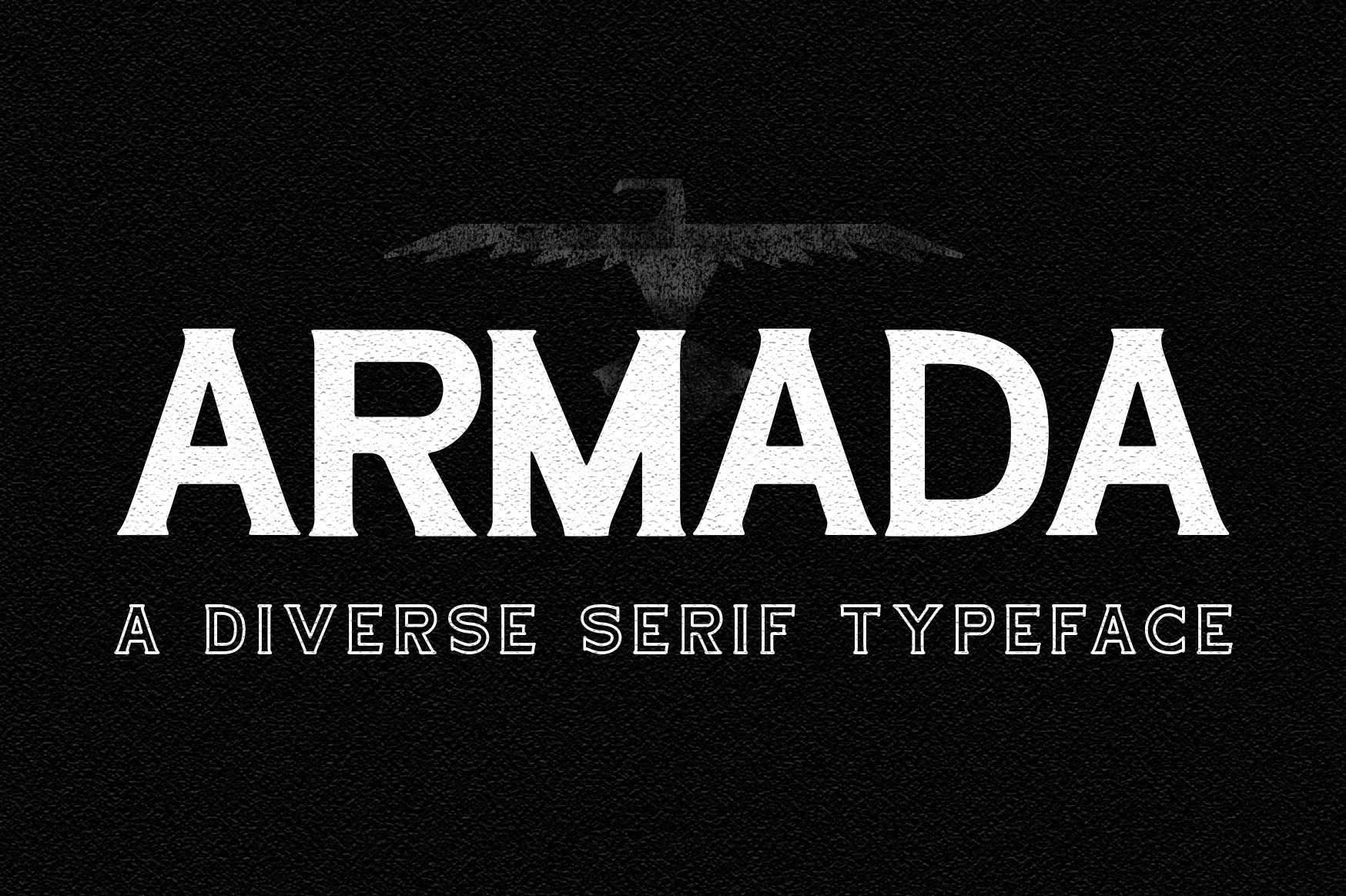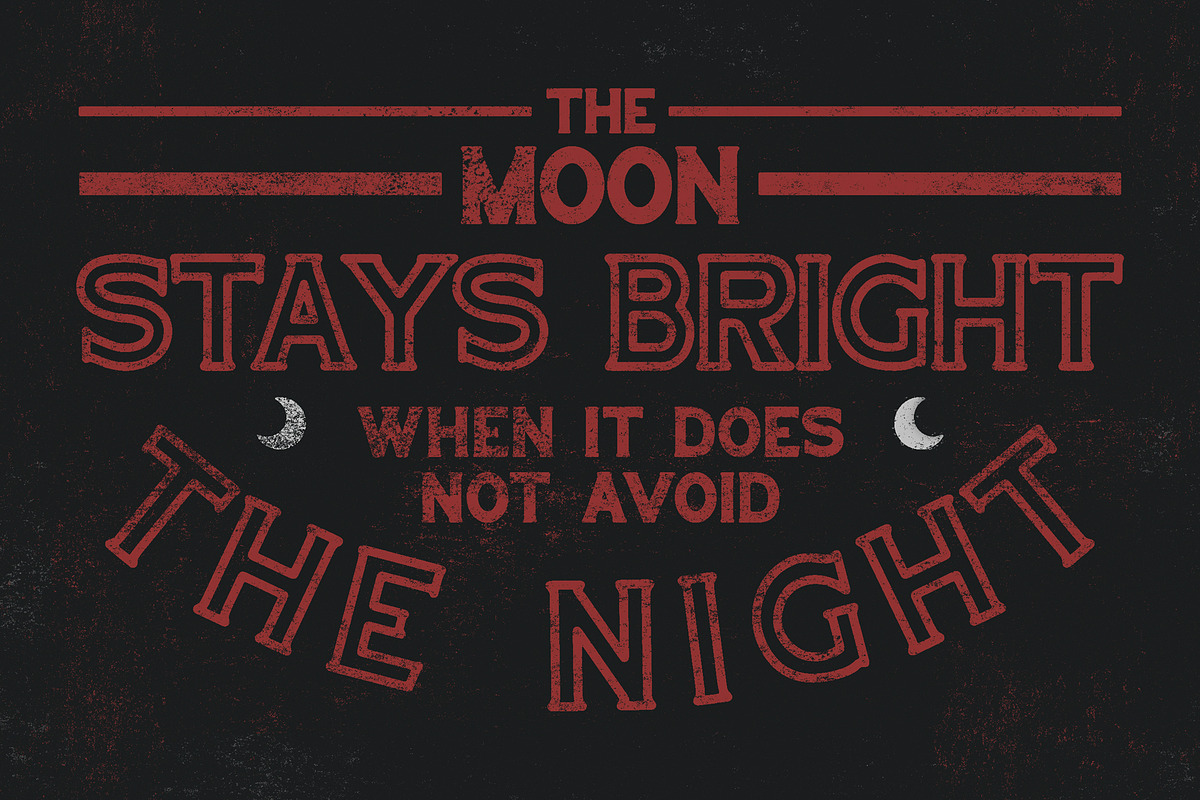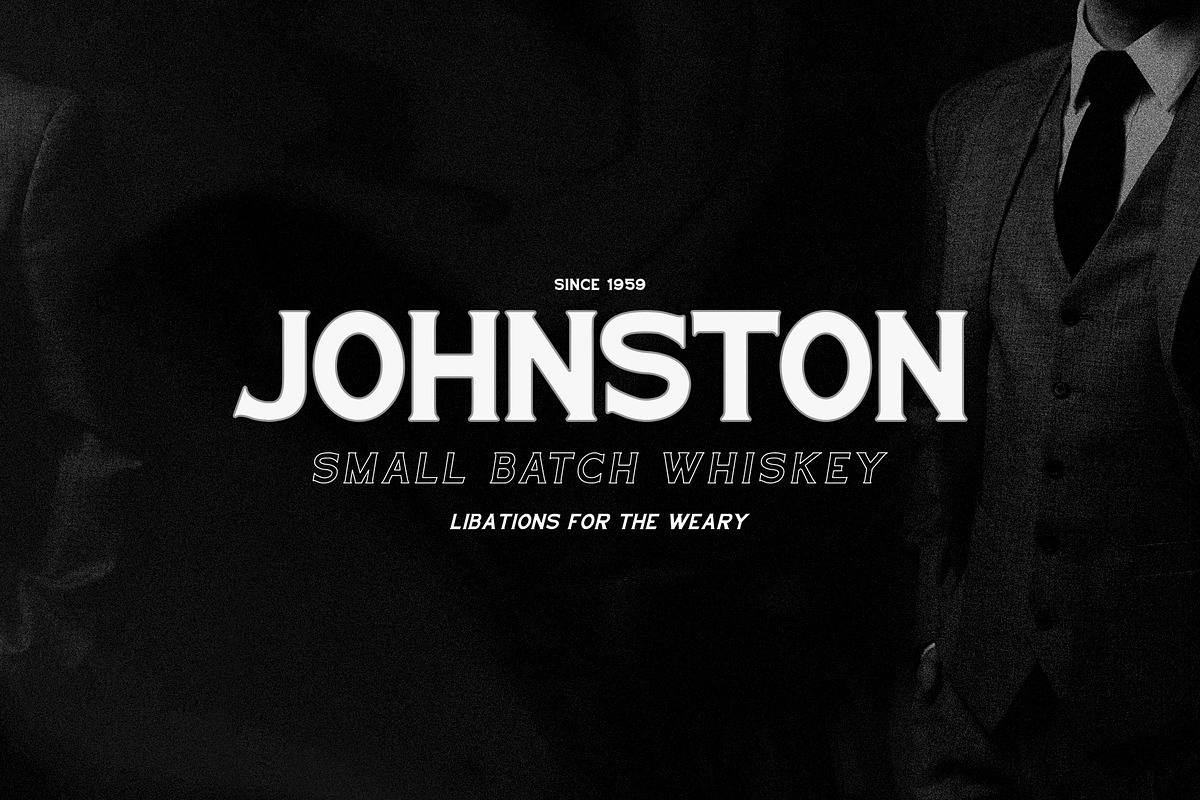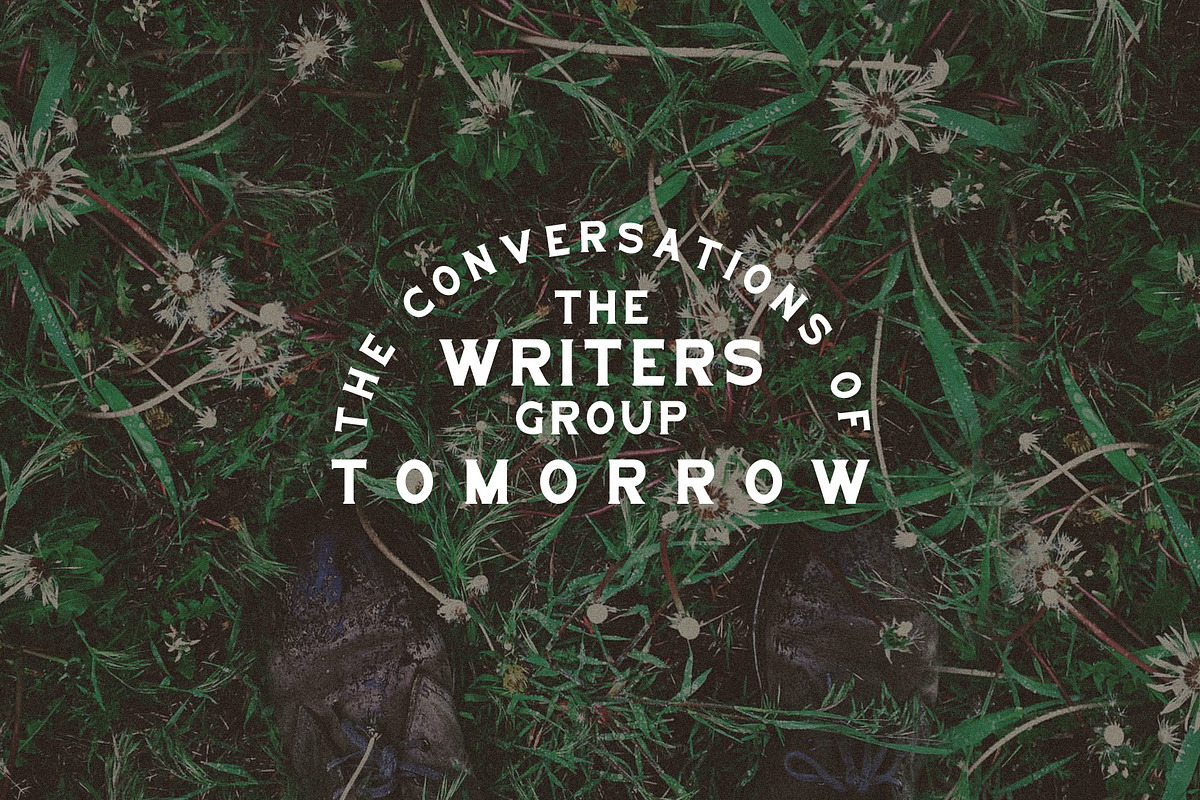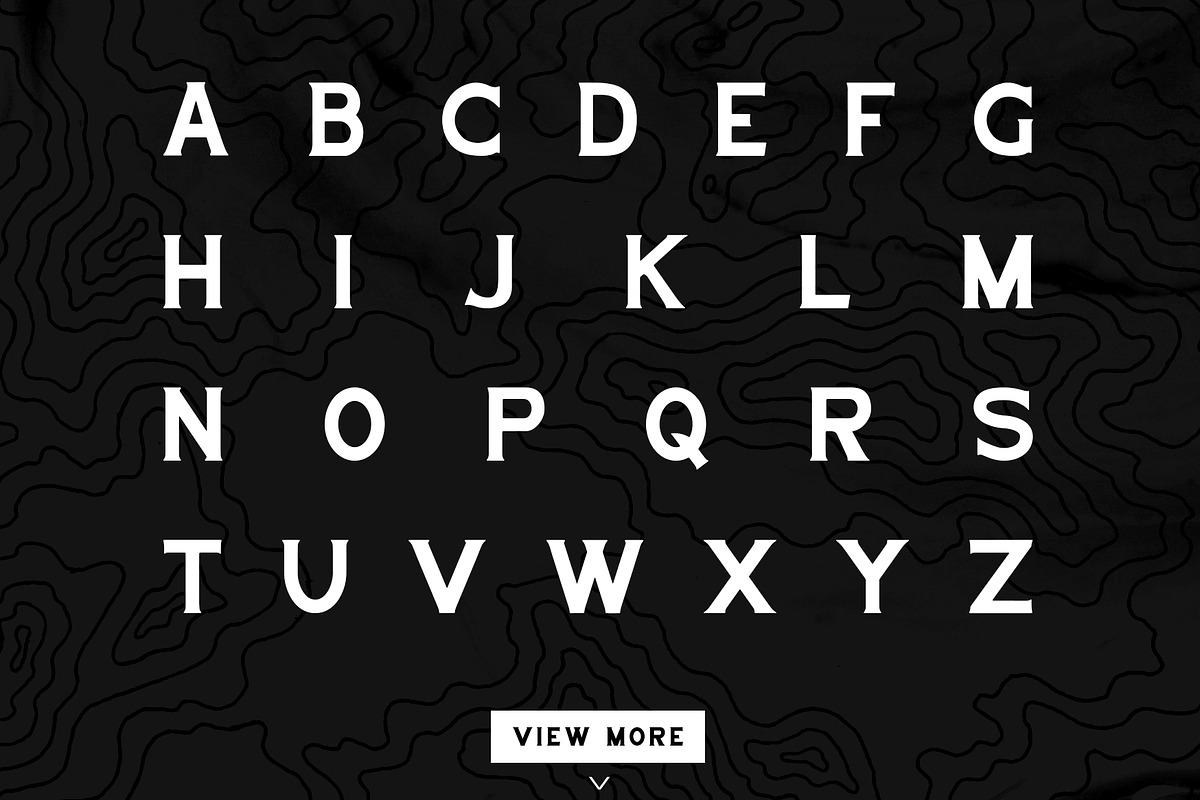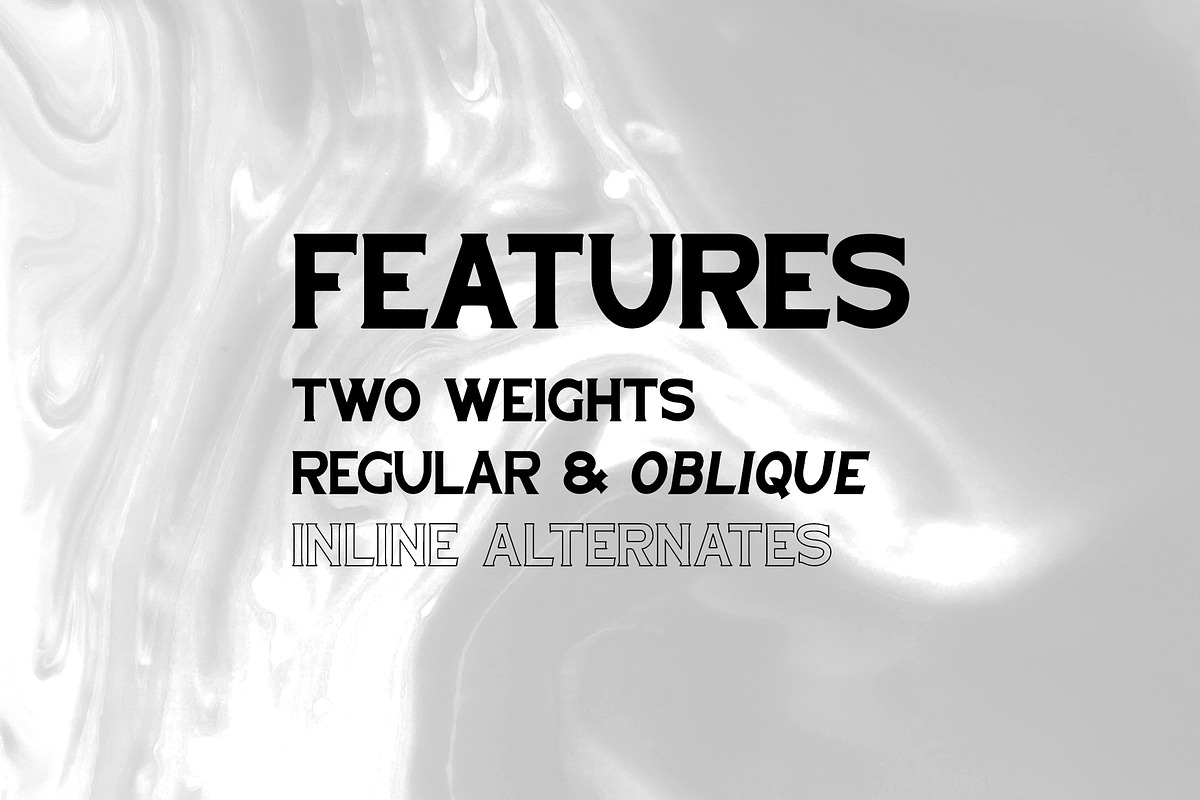
Armada / Serif Typeface
This is Armada. An all caps serif typeface ideal for branding and merchandising.
- six styles (Regular, Italic, Bold, Bold Italic, Inline, Inline Italic) (all font filetypes)
- all caps
- numbers & punctuation